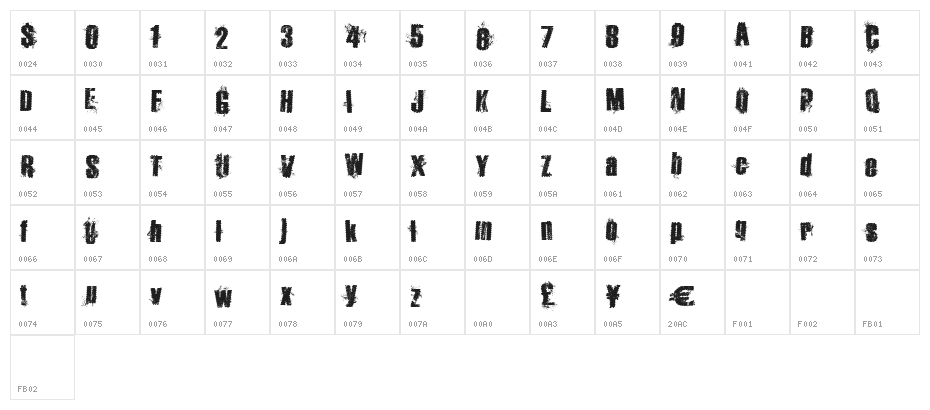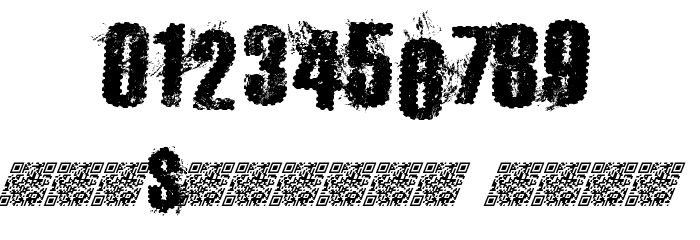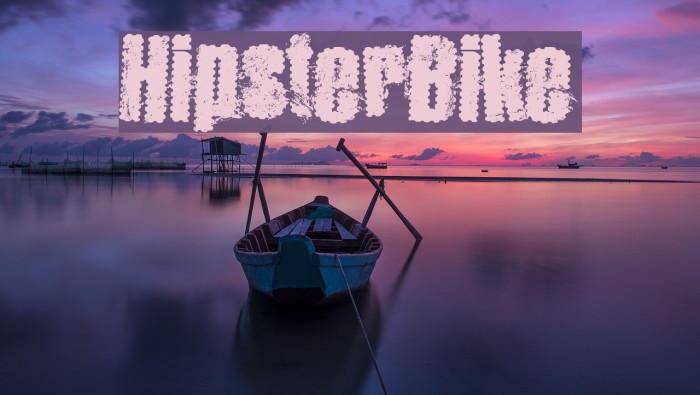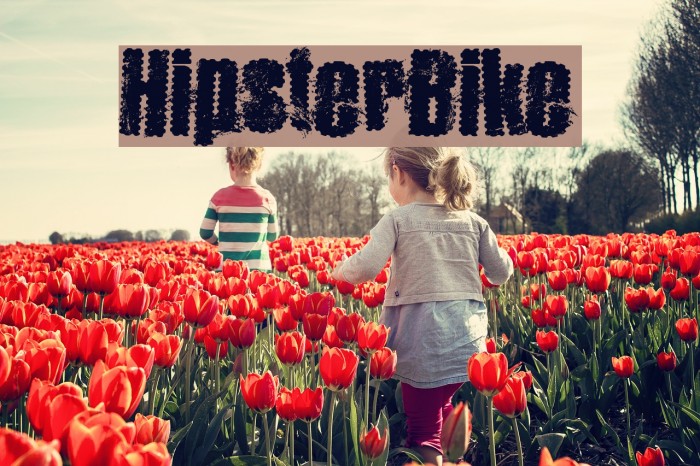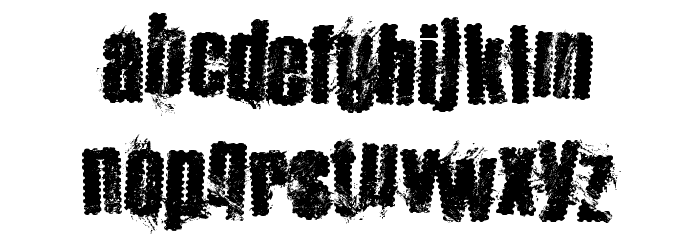
HipsterBike Font
HipsterBike Description
This font features a distressed, grunge style with a textured appearance that gives it a rugged and edgy look. The characters are bold and heavily stylized, with irregular edges that create a sense of movement and energy. The uppercase and lowercase letters maintain a consistent design, while the numbers and special characters follow the same aesthetic, ensuring a cohesive appearance across all elements. The font's unique style makes it stand out, ideal for projects that require a bold statement.
| Overall Style | Grunge, Edgy |
| Proposed Projects | Ideal for music album covers, posters, urban-themed designs, and branding that requires a bold, edgy look. |